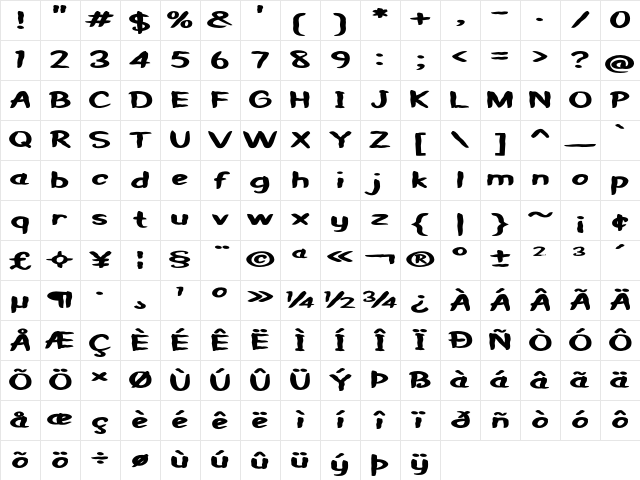
Wallobee Extra-expanded Bold
Style: Extra-expanded Bold
Wallobee Family
Wallobee Extra-expanded Bold
Design Context for Wallobee
Wallobee is a composed and adaptable typeface that performs quietly and consistently across a wide range of design contexts. Its bold stroke weight gives it real presence on the page.